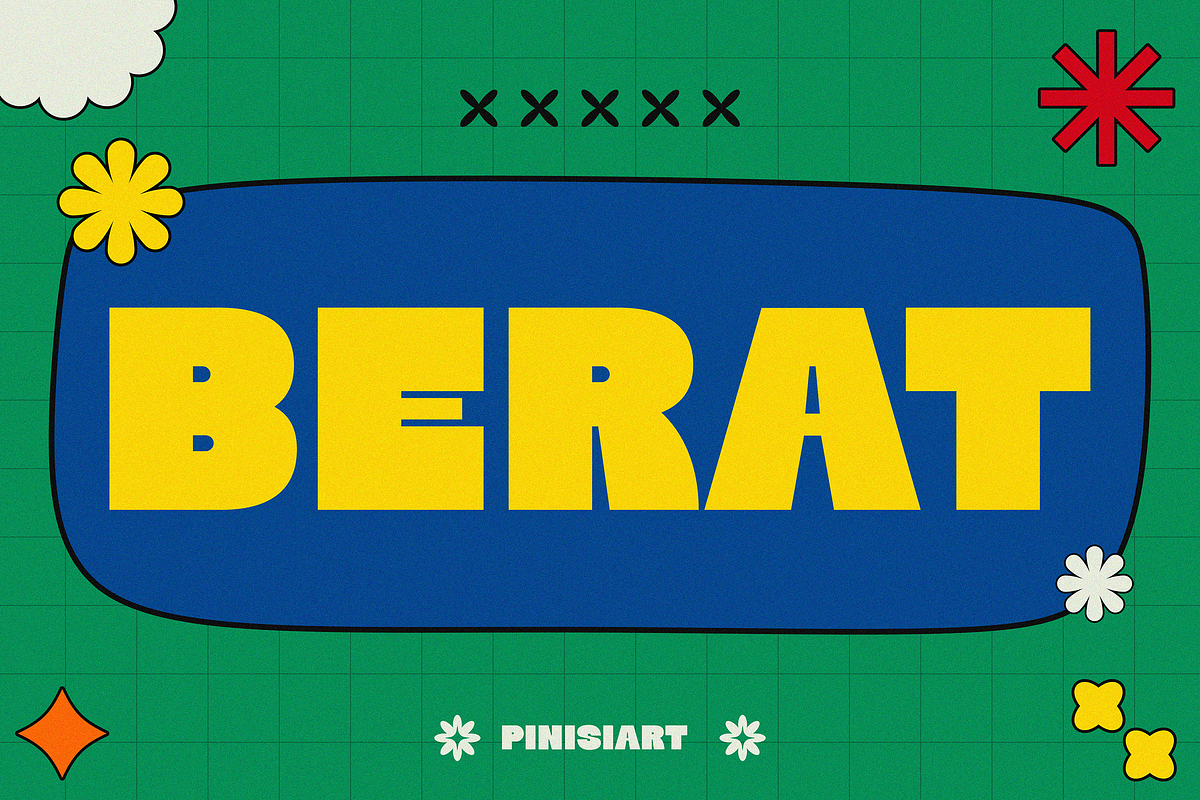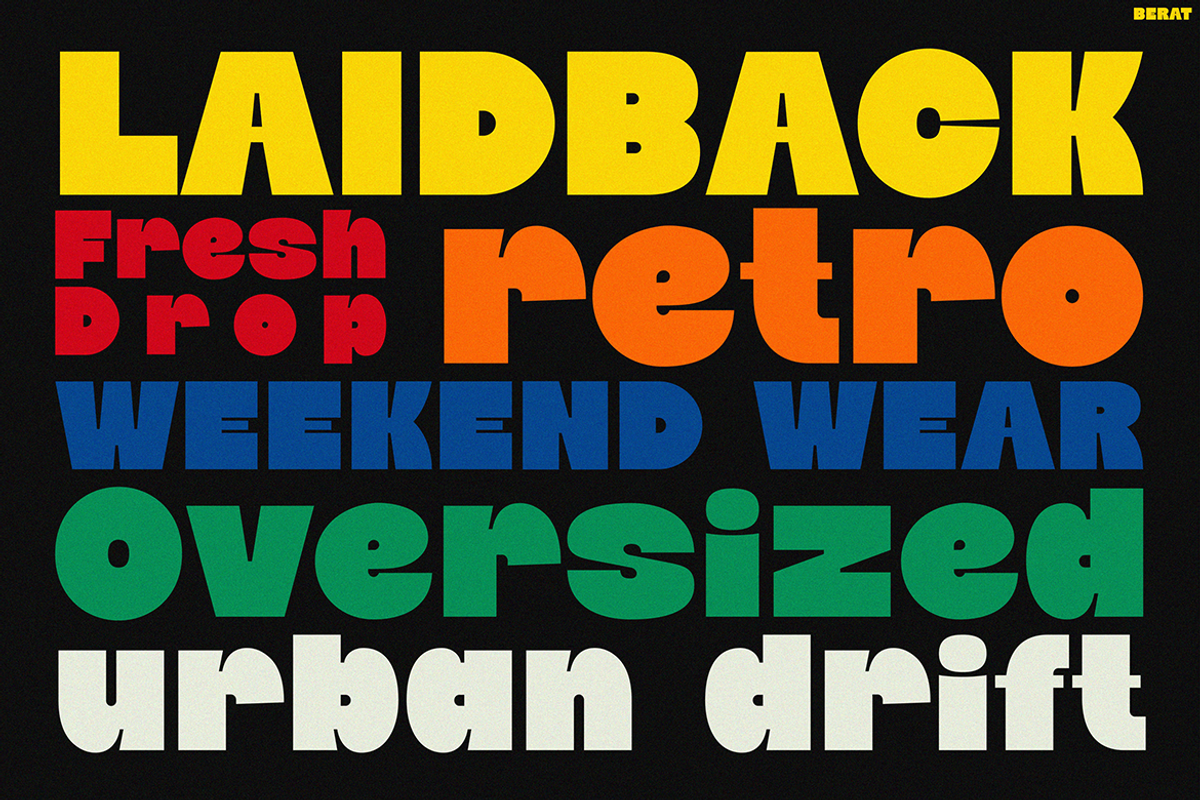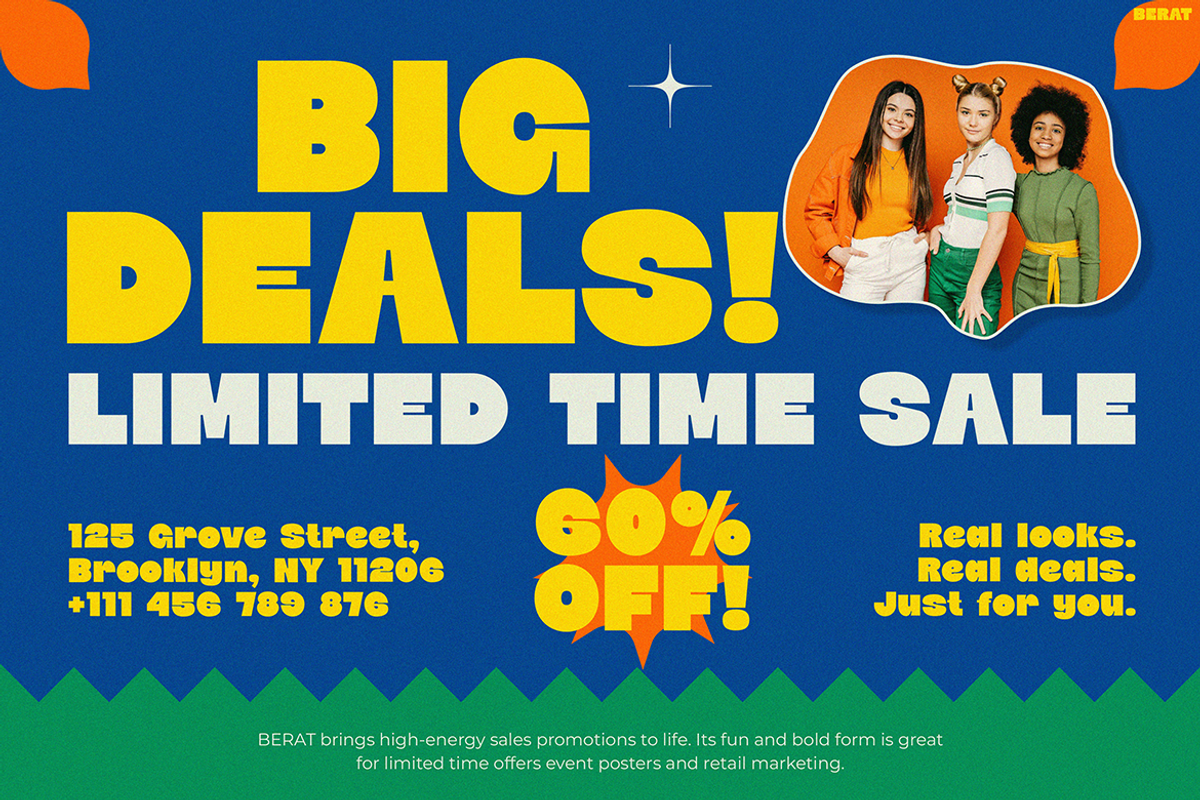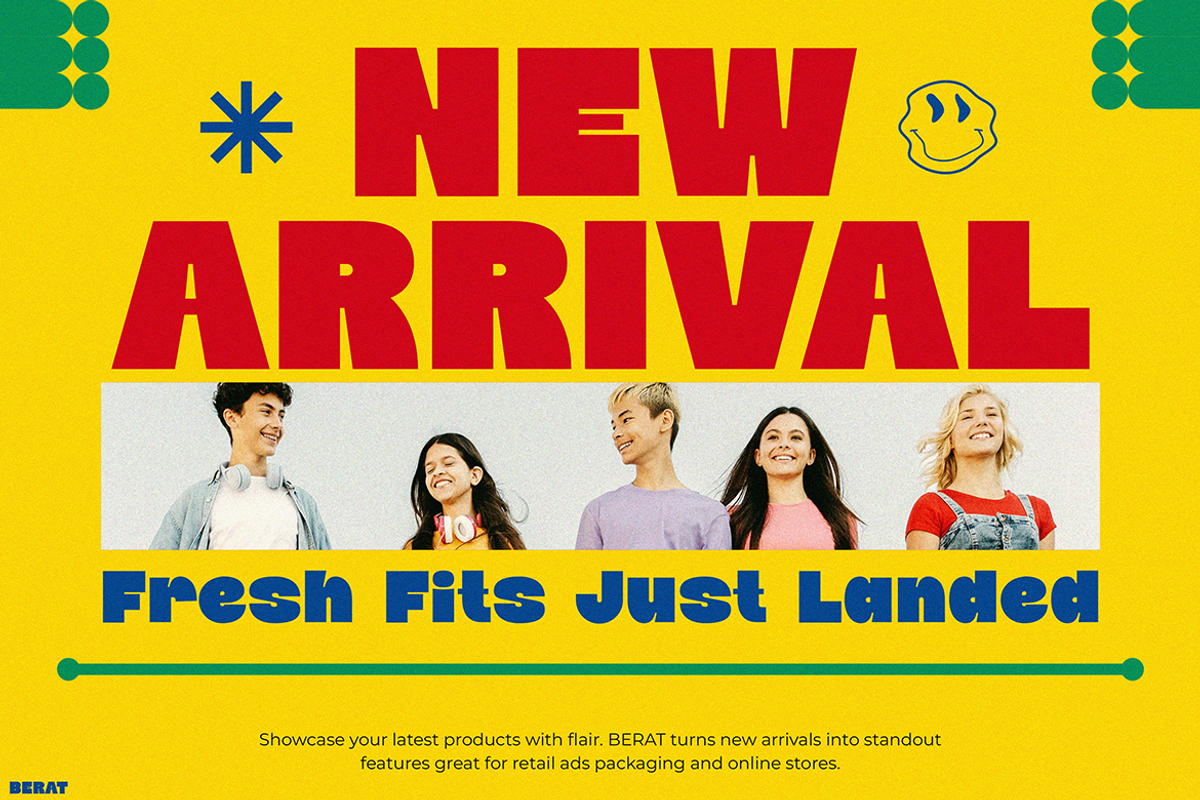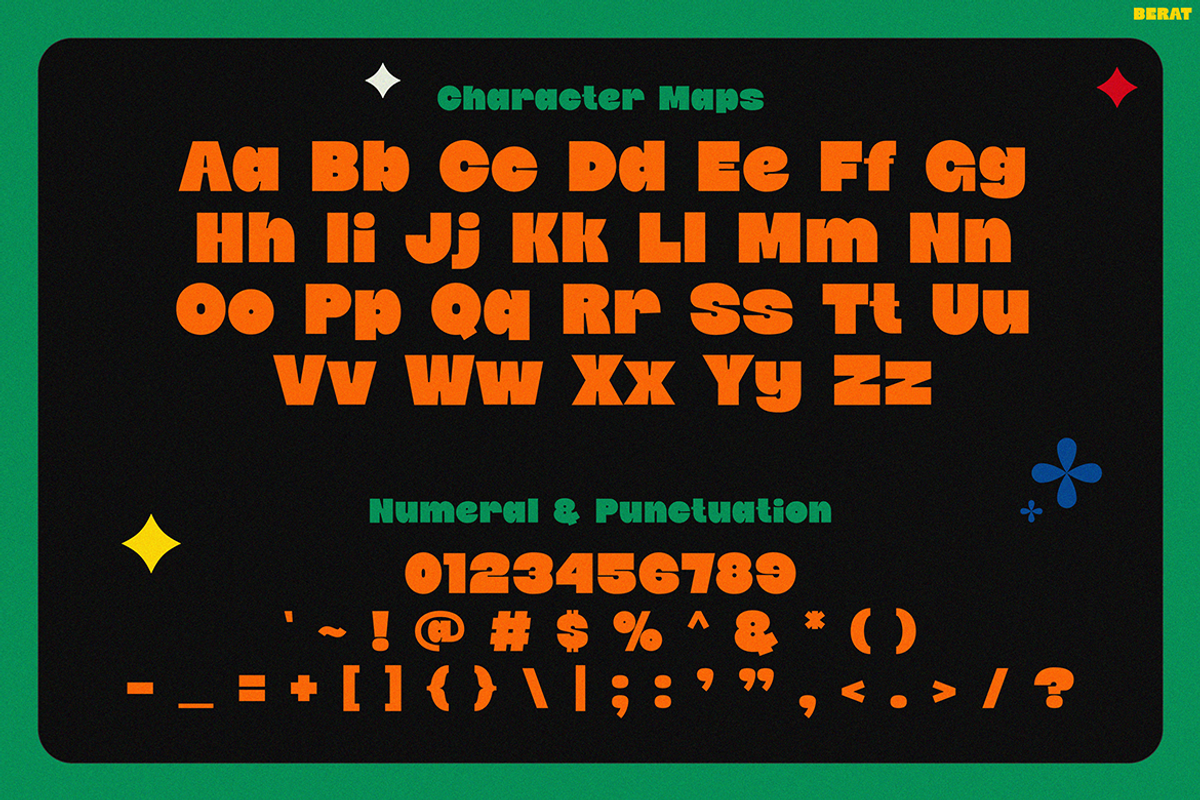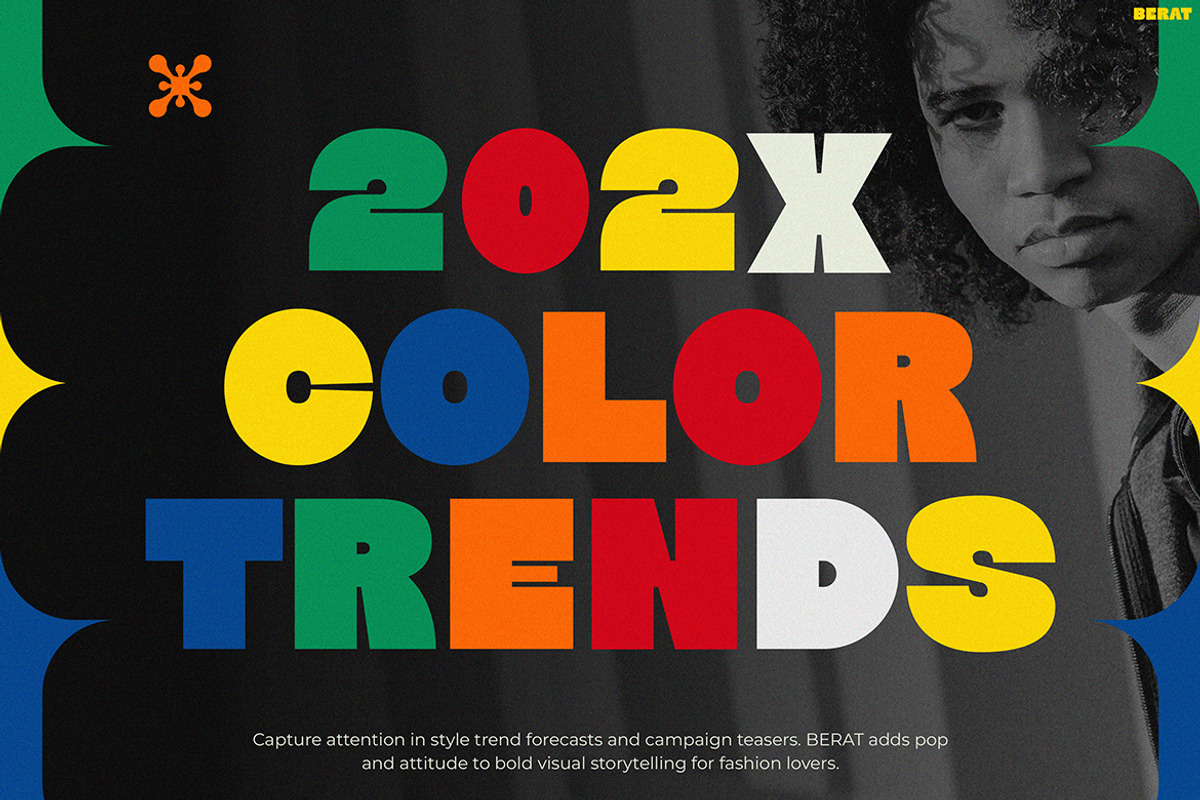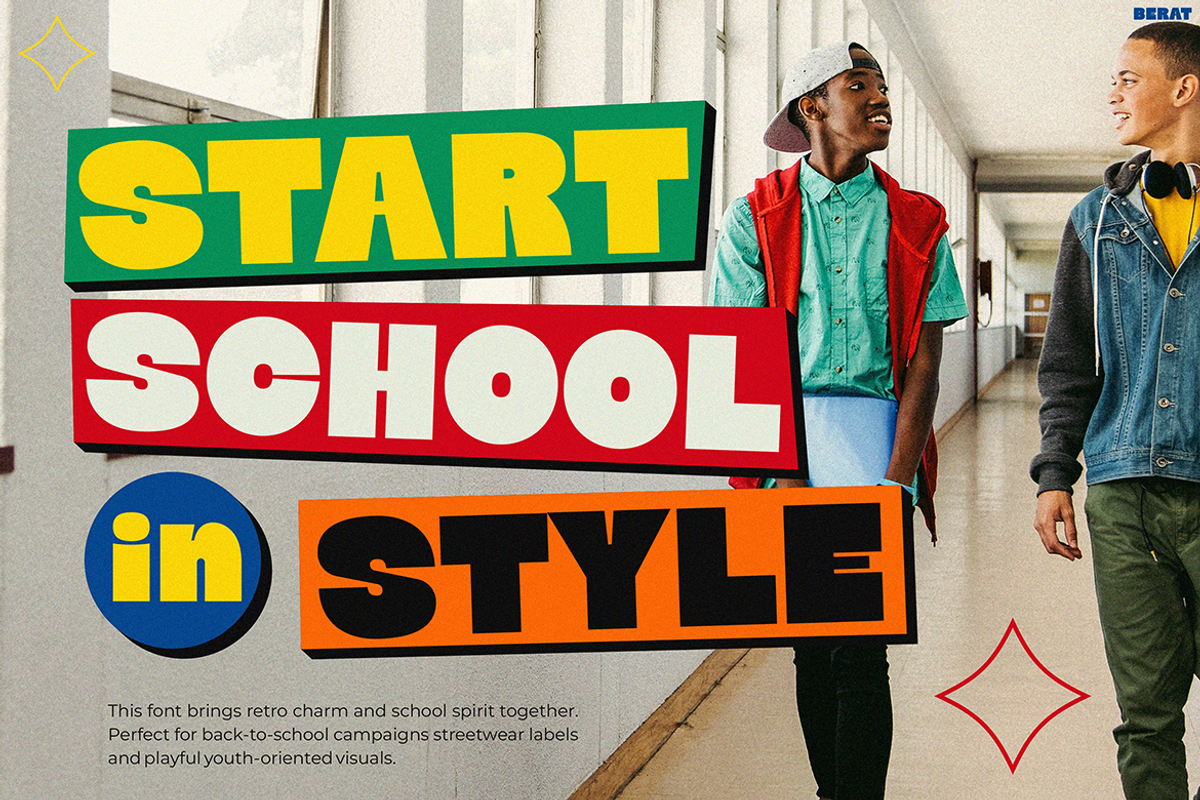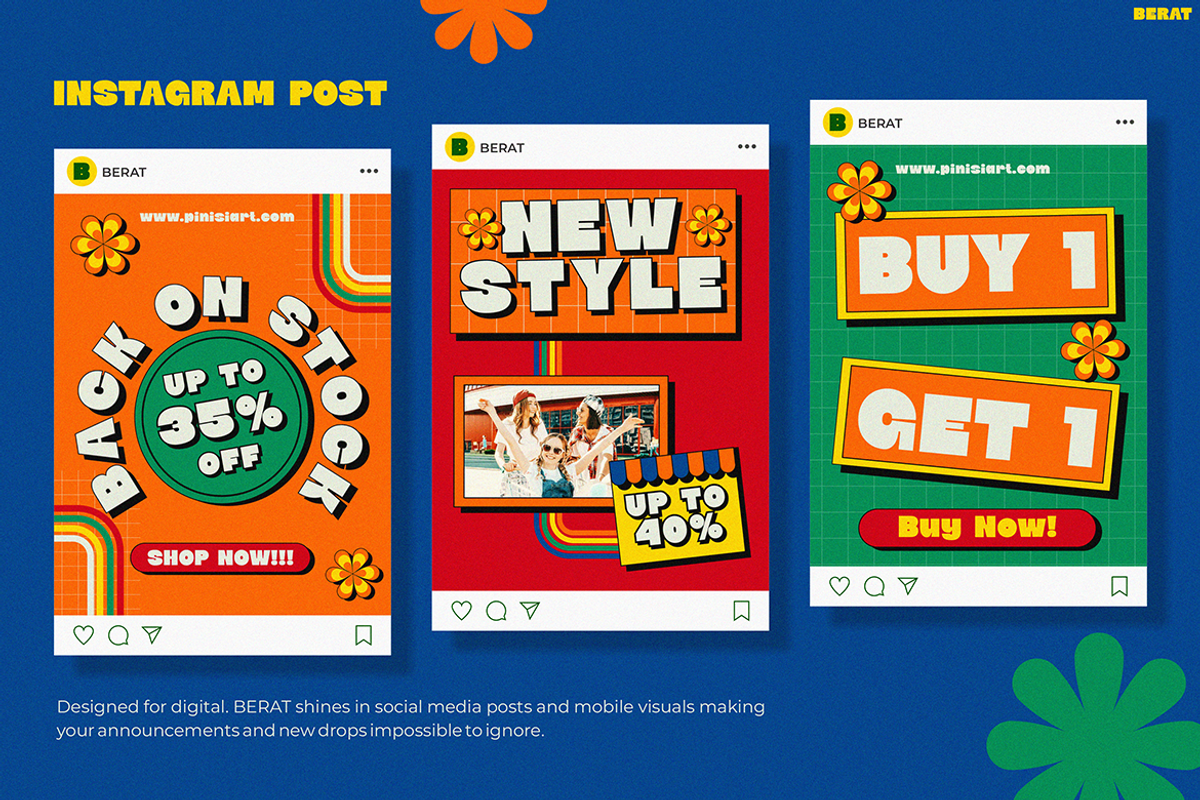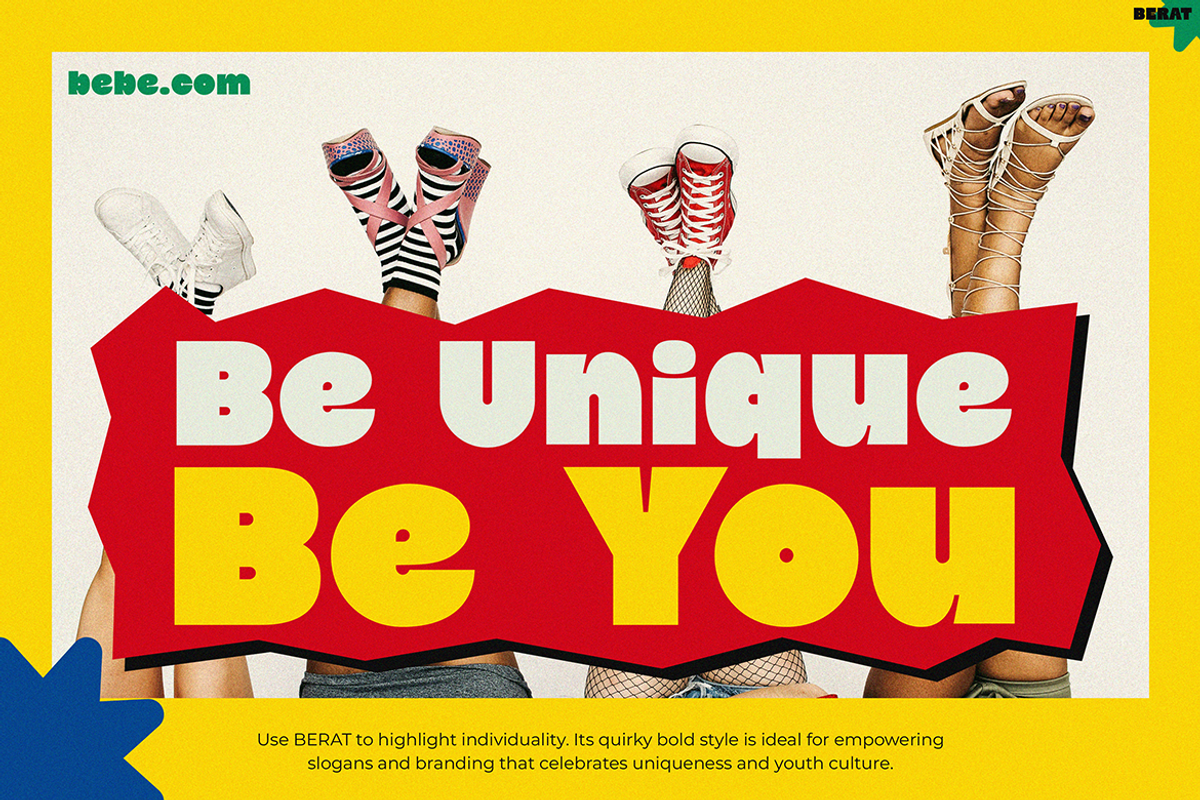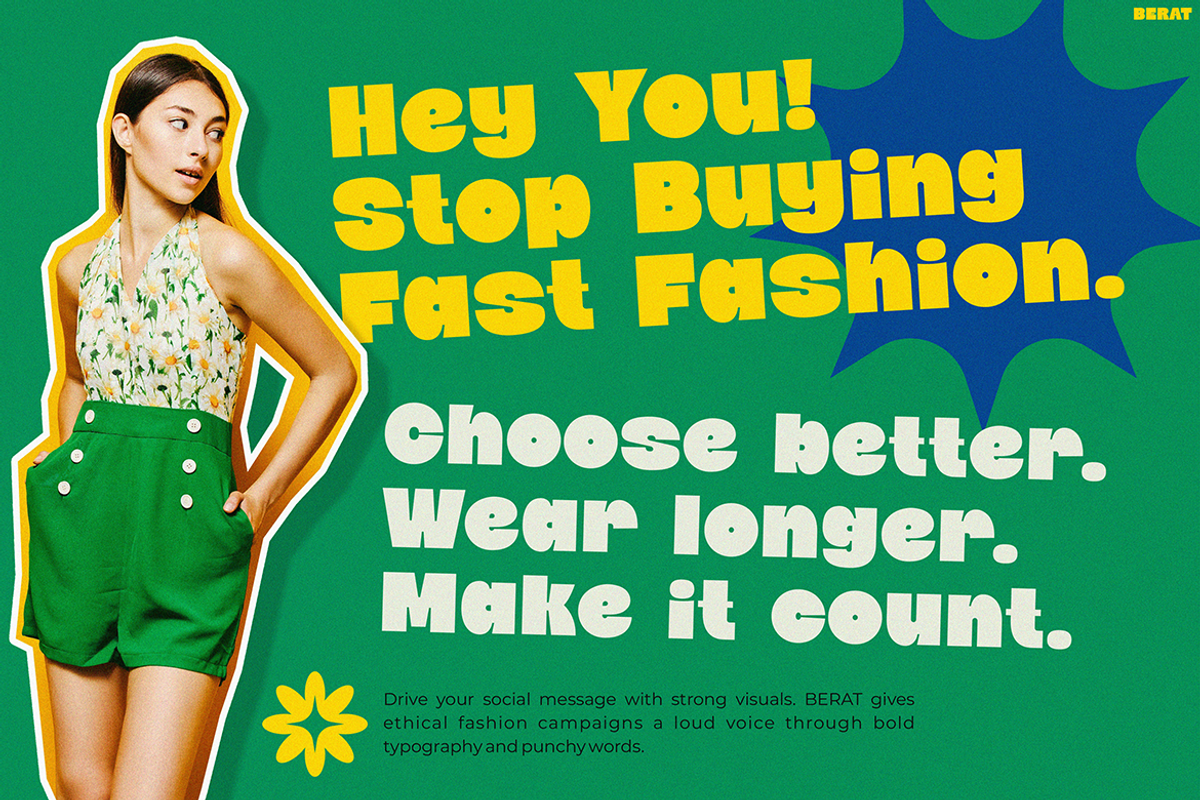
BERAT
Instagram Font BERAT: A Retro Revolution in Digital Typography
Instagram Font BERAT is a bold and vibrant typeface that instantly grabs attention. Not only does it blend nostalgic charm with a fresh digital vibe, but it also adds playful energy to every message. The font features thick strokes, quirky curves, and chunky letterforms. As a result, it evokes the spirit of ’70s and ’90s pop culture. Moreover, it is especially effective on platforms like Instagram, where visual appeal is key and first impressions matter.
What truly sets BERAT apart is its bold personality. In fact, this font isn’t just made of letters — it’s made of attitude. Through color blocking, rounded shapes, and playful proportions, it delivers a look that’s fun, energetic, and friendly. At the same time, it remains highly readable across devices. Thanks to its balance between retro style and modern clarity, BERAT brings nostalgic charm into today’s fast-paced digital space. Consequently, it’s the perfect choice for creators who want to inject personality and energy into their content.
BERAT’s design works particularly well with vibrant color palettes and layered graphics. Whether you’re promoting a special offer, announcing a product drop, or sharing an exciting update, the font commands attention without overwhelming your message. Plus, it seamlessly adapts to both still visuals and motion graphics, making it a smart choice for dynamic brand storytelling.